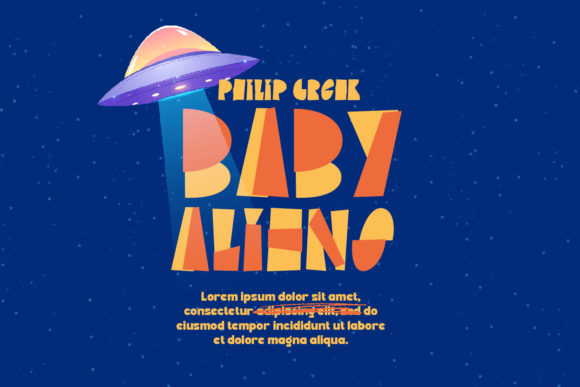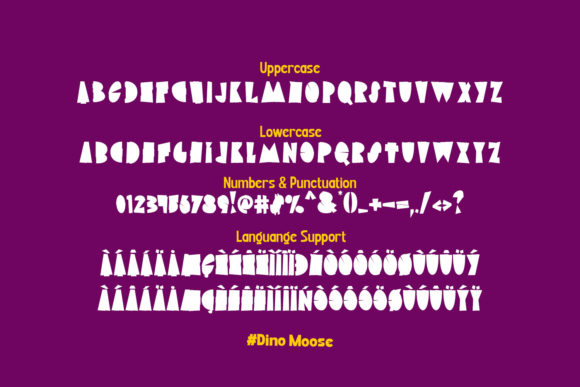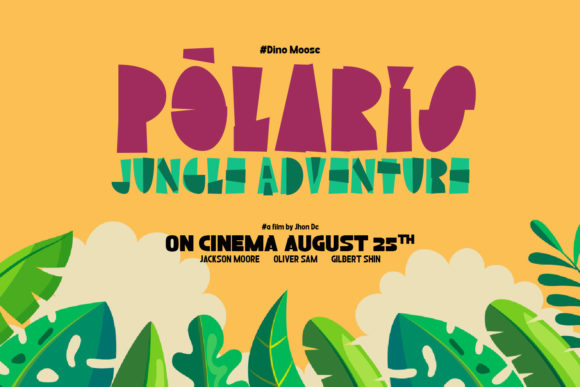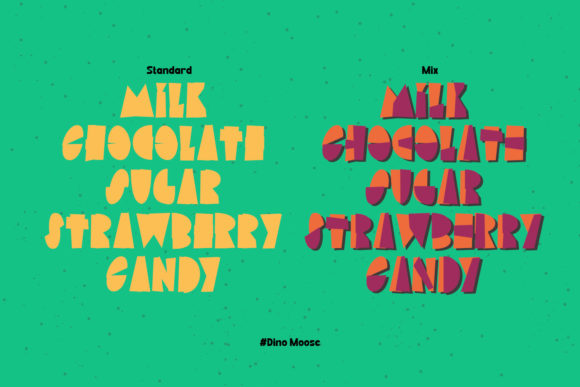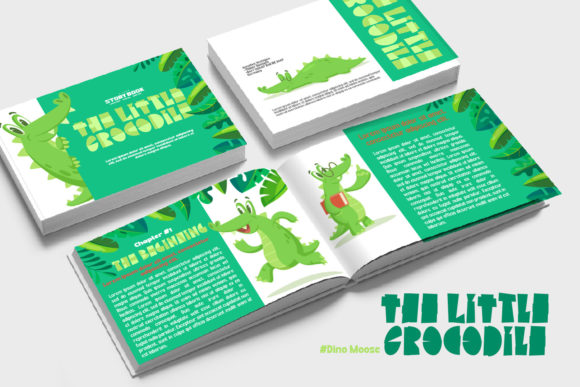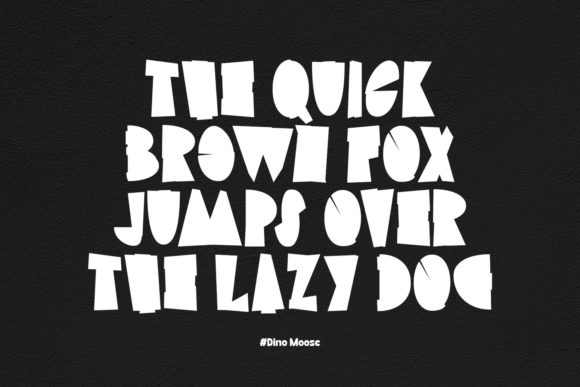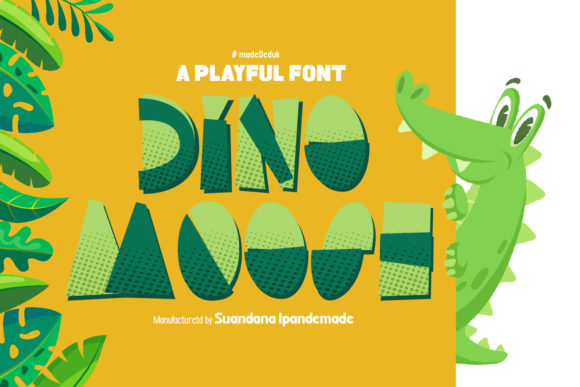
Dino Moose Font: A Fun and Playful Typeface for Kids’ Designs
Are you looking for a font that’s perfect for kids’ themed designs? Look no further than the Dino Moose font! This cool and cartoon-like decorative font is sure to delight children and adults alike with its playful and fun vibe. In this article, we’ll take a closer look at the Dino Moose font, its features, and how you can use it to create amazing designs for kids.
What is Dino Moose Font?
Dino Moose font is a decorative typeface that’s designed to resemble the playful and imaginative world of dinosaurs and moose. The font features bold, rounded letters with a mix of sharp and smooth edges, giving it a unique and eye-catching look. The font is perfect for designs that require a fun and playful touch, such as kids’ party invitations, children’s book titles, and educational materials.
Key Features of Dino Moose Font
- Cartoon-like design: The Dino Moose font has a distinctly cartoon-like feel, making it perfect for kids’ designs that require a playful touch.
- Bold and rounded letters: The font features bold, rounded letters that are easy to read and fun to look at.
- Mix of sharp and smooth edges: The font’s unique combination of sharp and smooth edges gives it a distinctive look that’s sure to stand out.
- Perfect for kids’ designs: The Dino Moose font is specifically designed for kids’ themed designs, making it perfect for children’s book titles, party invitations, and educational materials.
How to Use Dino Moose Font in Your Designs
The Dino Moose font is incredibly versatile and can be used in a variety of design projects, including:
- Kids’ party invitations: Create fun and playful party invitations that will delight kids and parents alike.
- Children’s book titles: Use the Dino Moose font to create eye-catching titles for children’s books that will grab kids’ attention.
- Educational materials: The font is perfect for educational materials, such as worksheets, activity sheets, and educational posters.
- Signs and banners: Use the Dino Moose font to create fun and playful signs and banners for kids’ events and parties.
Tips for Using Dino Moose Font Effectively
Here are some tips for using the Dino Moose font effectively in your designs:
- Combine with bright colors: The Dino Moose font looks amazing when combined with bright, bold colors that kids love.
- Use in combination with other fonts: Experiment with using the Dino Moose font in combination with other fonts to create a unique and eye-catching look.
- Keep it simple: Don’t overcomplicate your design – keep it simple and let the Dino Moose font do the talking.
| Font Name | Dino Moose Font |
| Author | madeDeduk |
The Dino Moose font is a fun and playful typeface that’s perfect for kids’ themed designs. With its cartoon-like design, bold and rounded letters, and mix of sharp and smooth edges, this font is sure to delight kids and adults alike. Whether you’re creating kids’ party invitations, children’s book titles, or educational materials, the Dino Moose font is a great choice. So why not give it a try and see what amazing designs you can create?